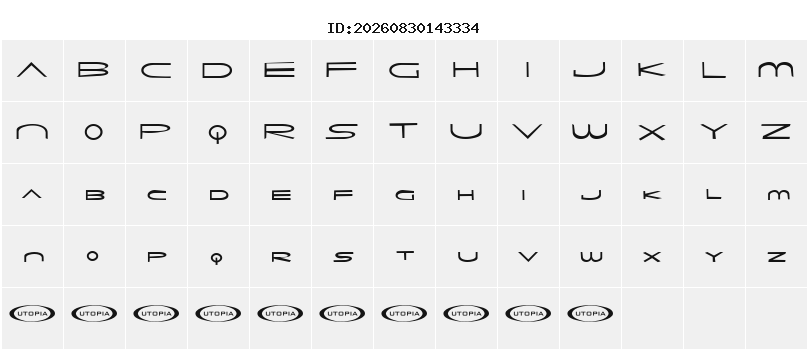
The Monkies Ate My Soul Preview
• Font Name: The Monkies Ate My Soul
• Full Font Name: The Monkies Ate My Soul
About The Monkies Ate My Soul.ttf
The Monkies Ate My Soul.ttf is a modern, elegant sans-serif font designed for ultimate readability and visual harmony. Perfect for branding, headlines, web design, and print materials.